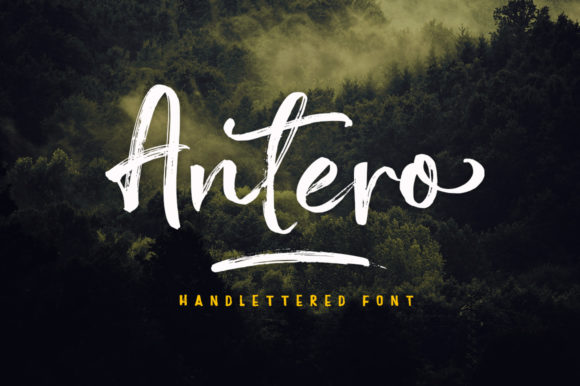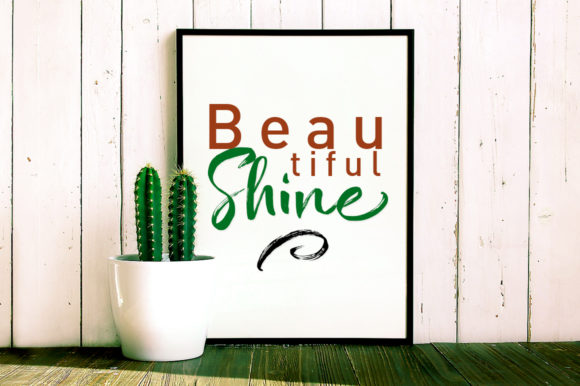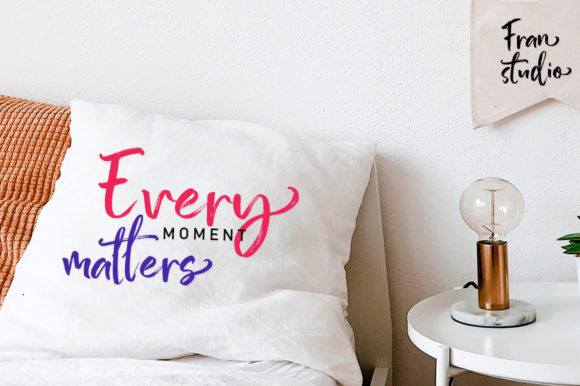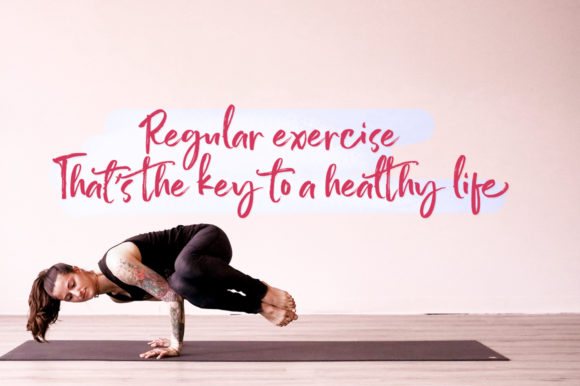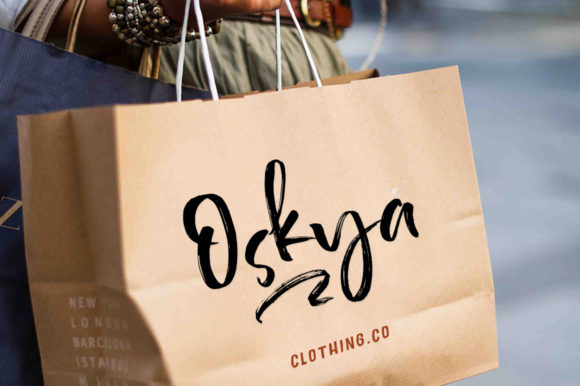
Antero Font
About Antero Font
Antero is a very unique handwritten font, created with the help of an outstanding brush pen. This font is PUA encoded which means you can access all of the glyphs and swashes with ease! It features a varying baseline, smooth lines, gorgeous glyphs and stunning alternates.
Fall in love with its incredibly versatile style and use it to create gorgeous wedding invitations, beautiful stationary art, eye-catching social media posts, and much more!